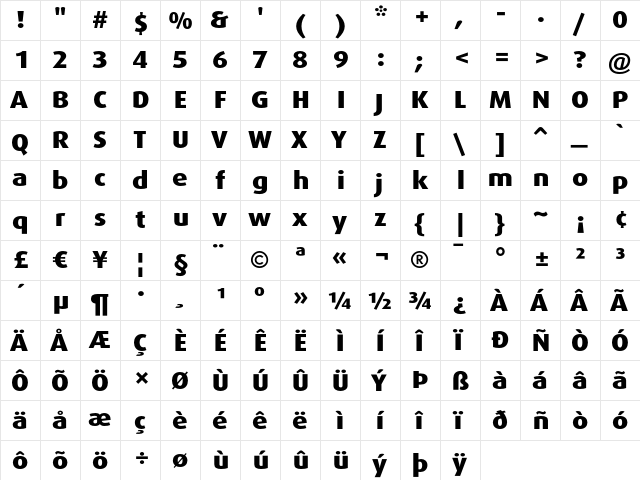
DaxWide ExtraBold
Design Context for DaxWide Typeface
DaxWide is a composed and adaptable typeface that performs quietly and consistently across a wide range of design contexts. The heavy weight commands attention and anchors typographic hierarchies.